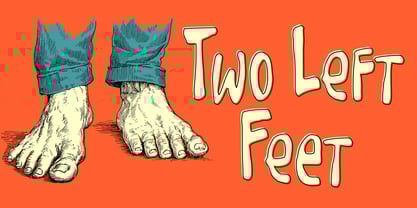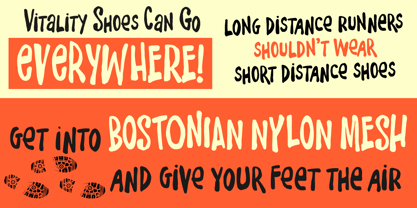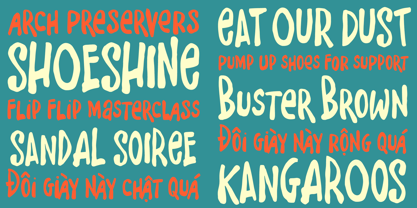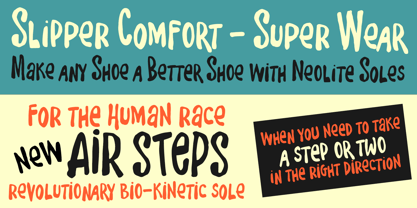
Two Left Feet
by One Eyed Squid
The Two Left Feet Font Family was designed by Brian J. Bonislawsky, Dave Cohen and published by One Eyed Squid. Two Left Feet contains 1 styles. More about this family
Two Left Feet is a clumsy, hand-drawn display font with loose brush styling, off-kilter charm, and a playful personality built around purposeful imperfections. Its lively letterforms feel casual, inky, and full of movement, while randomized alternates add even more natural variation and quirky character. Ideal for headlines, posters, branding, packaging, greeting cards, social media graphics, and other creative projects that benefit from a fun, handmade typographic voice, Two Left Feet brings expressive energy and lovable awkwardness to every layout. Includes extended Latin language support, including Vietnamese.
Designers: Brian J. Bonislawsky, Dave Cohen
Foundry: One Eyed Squid